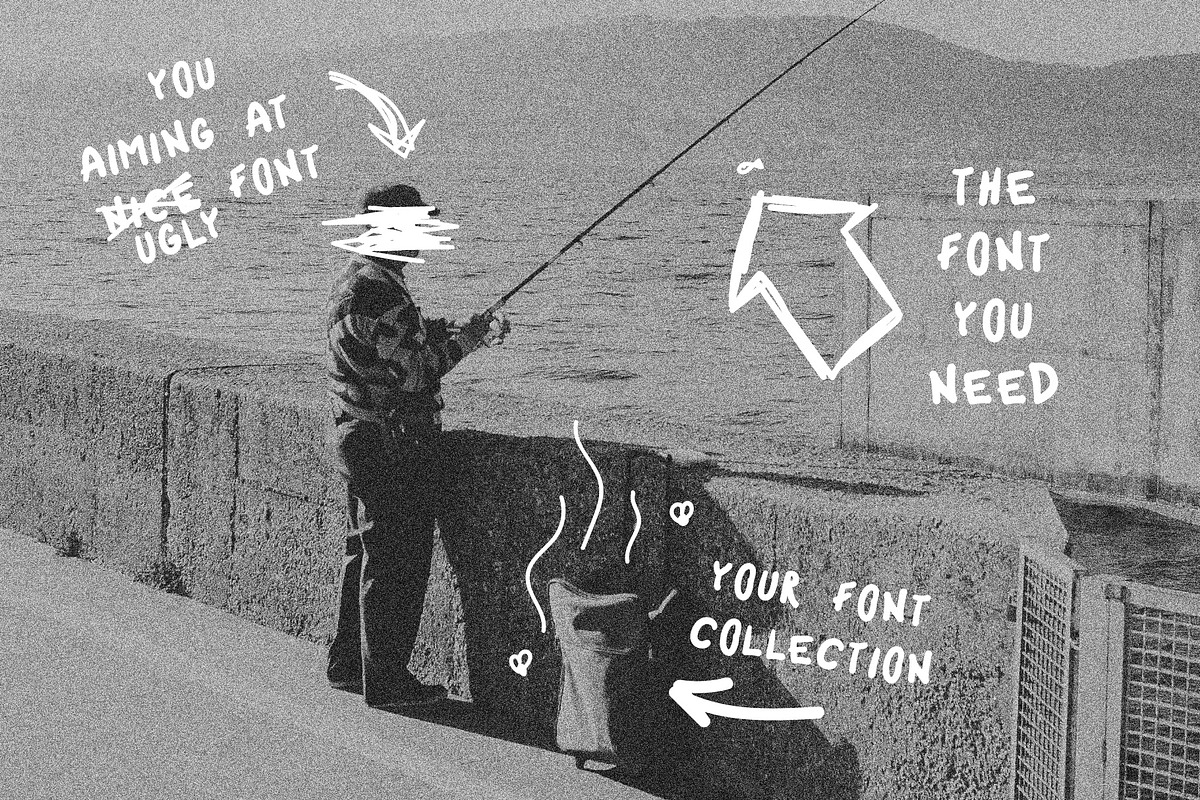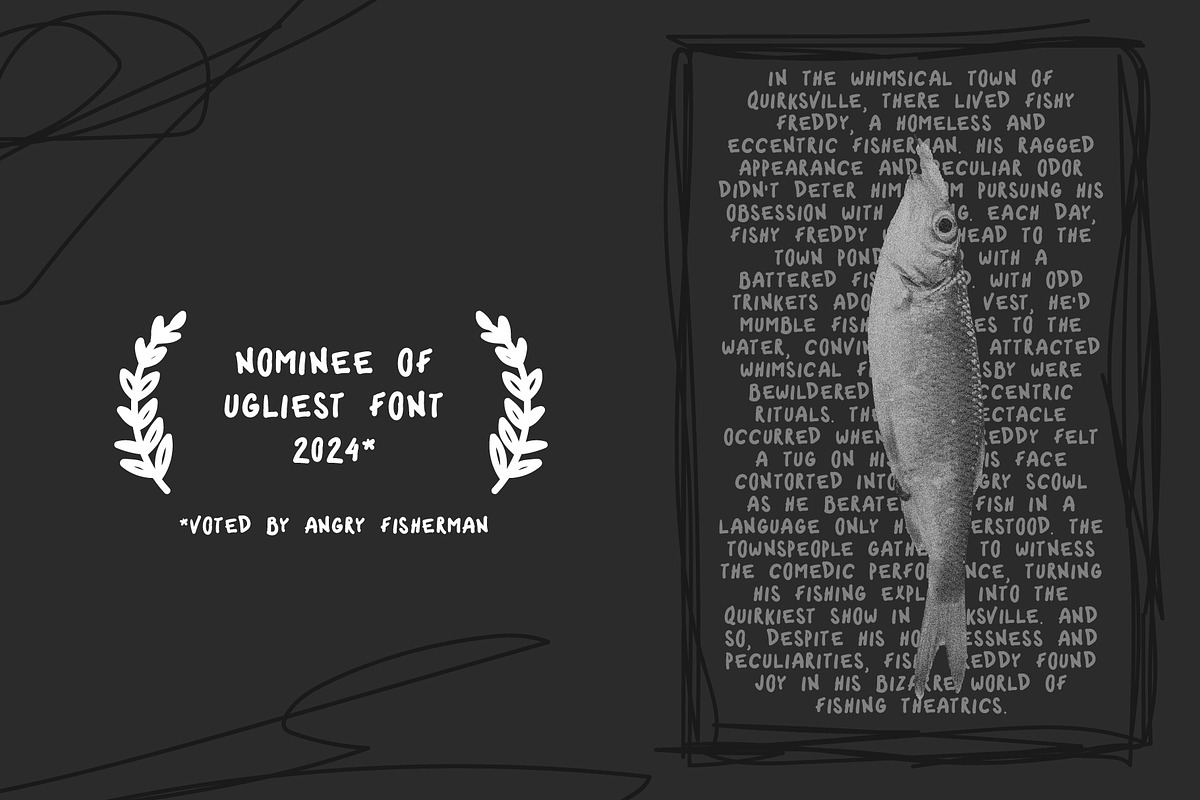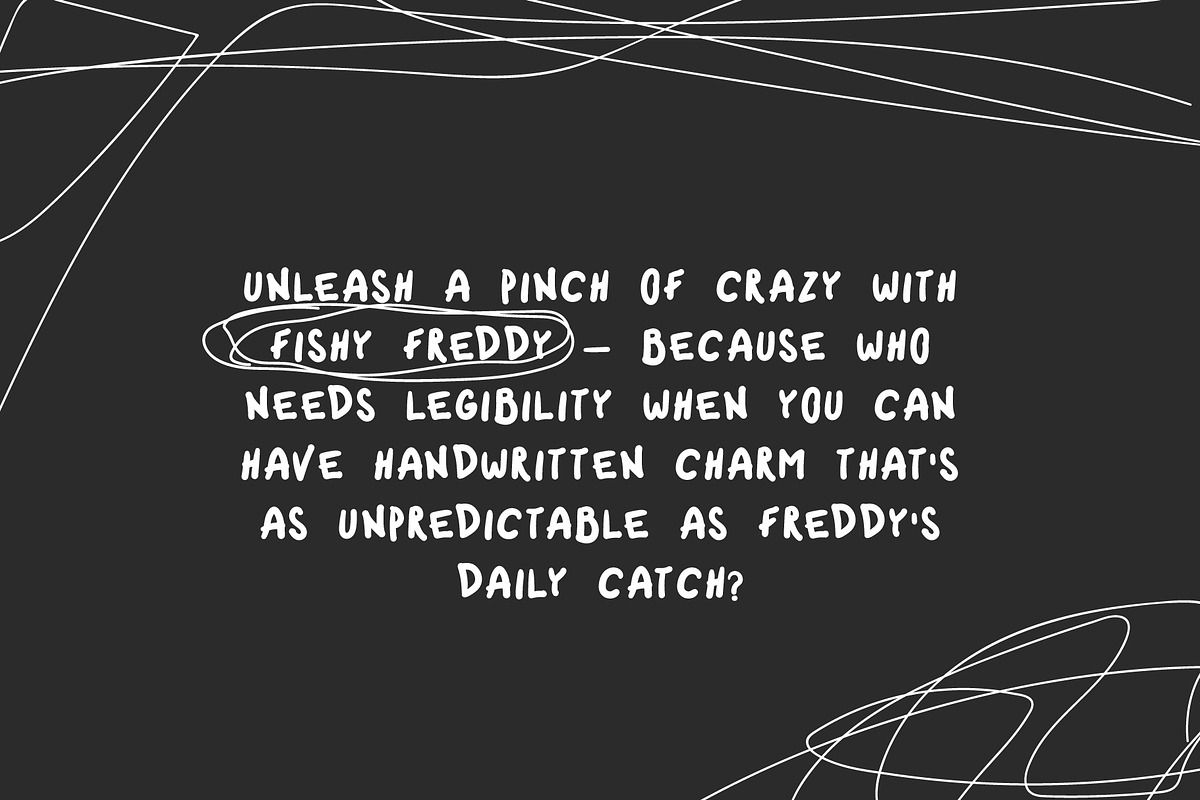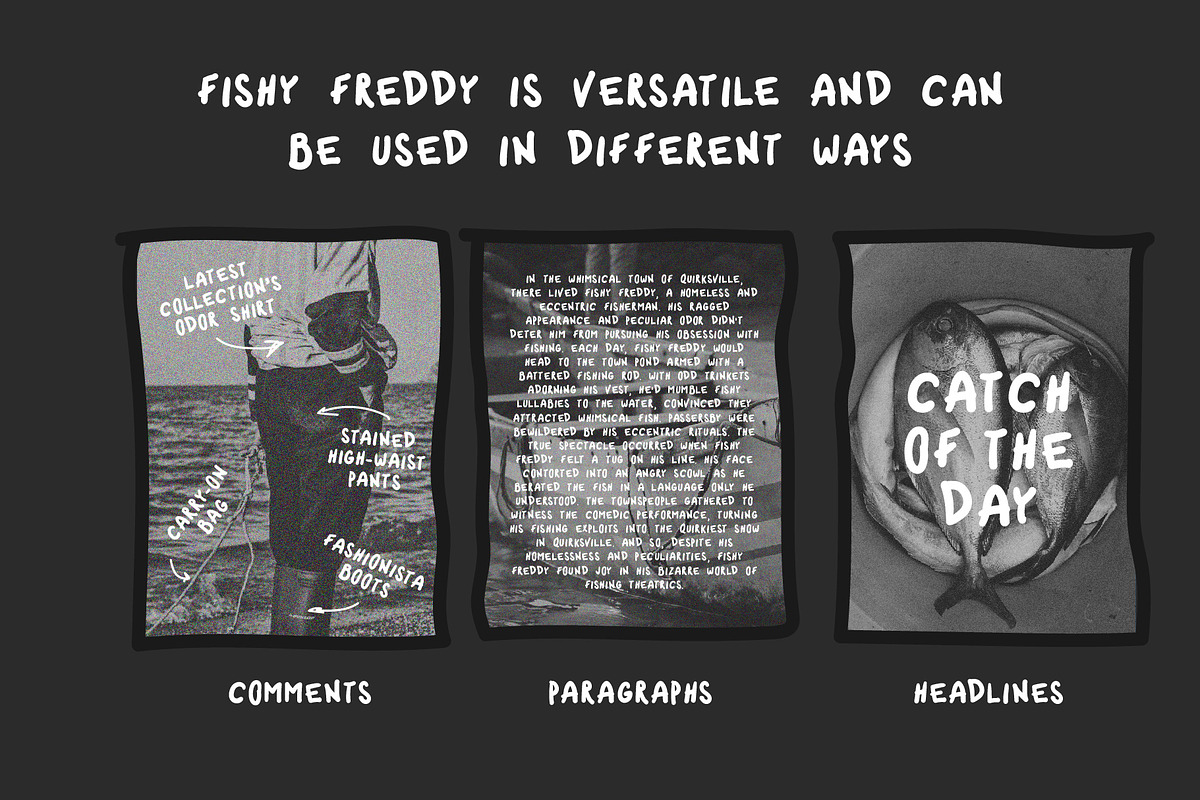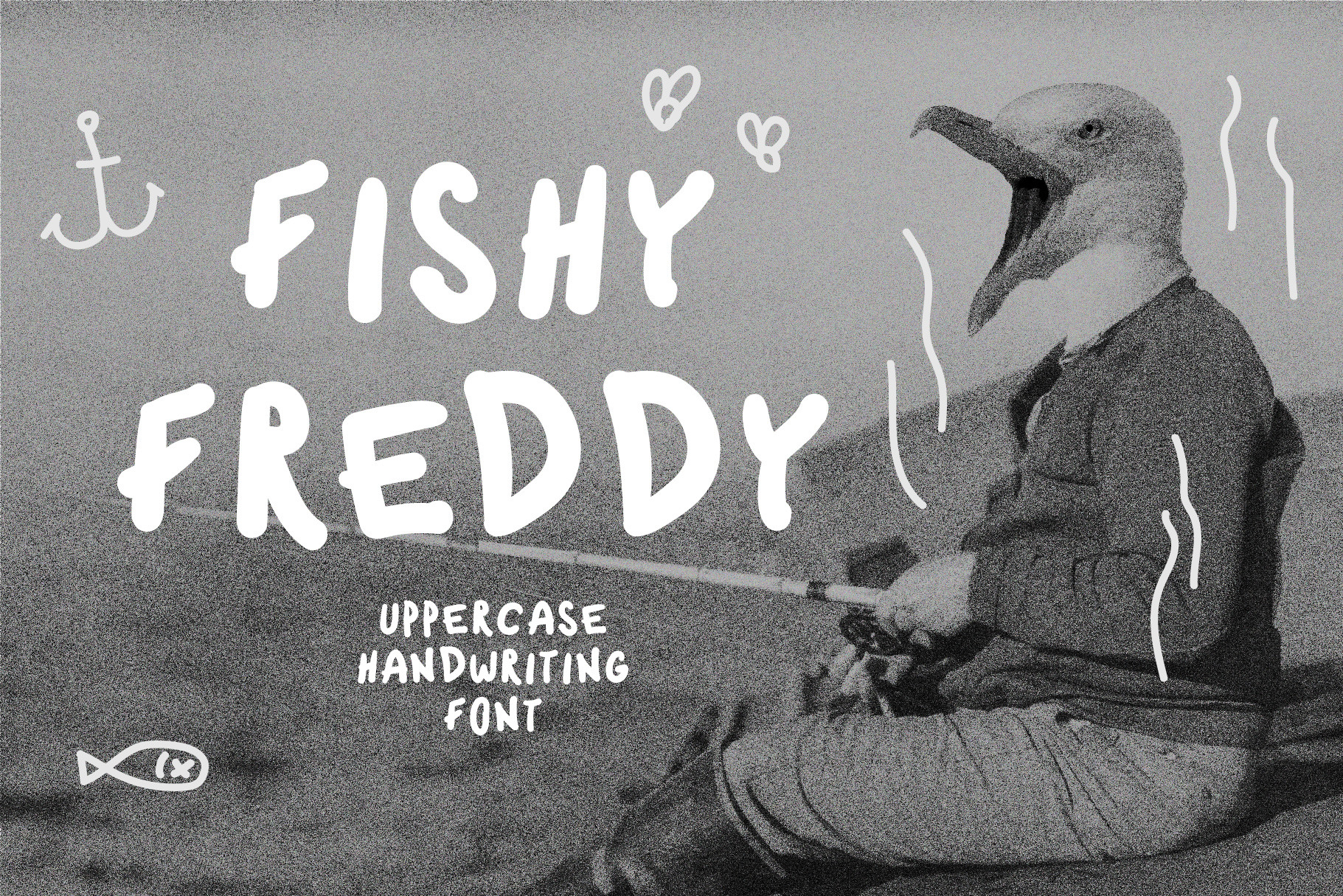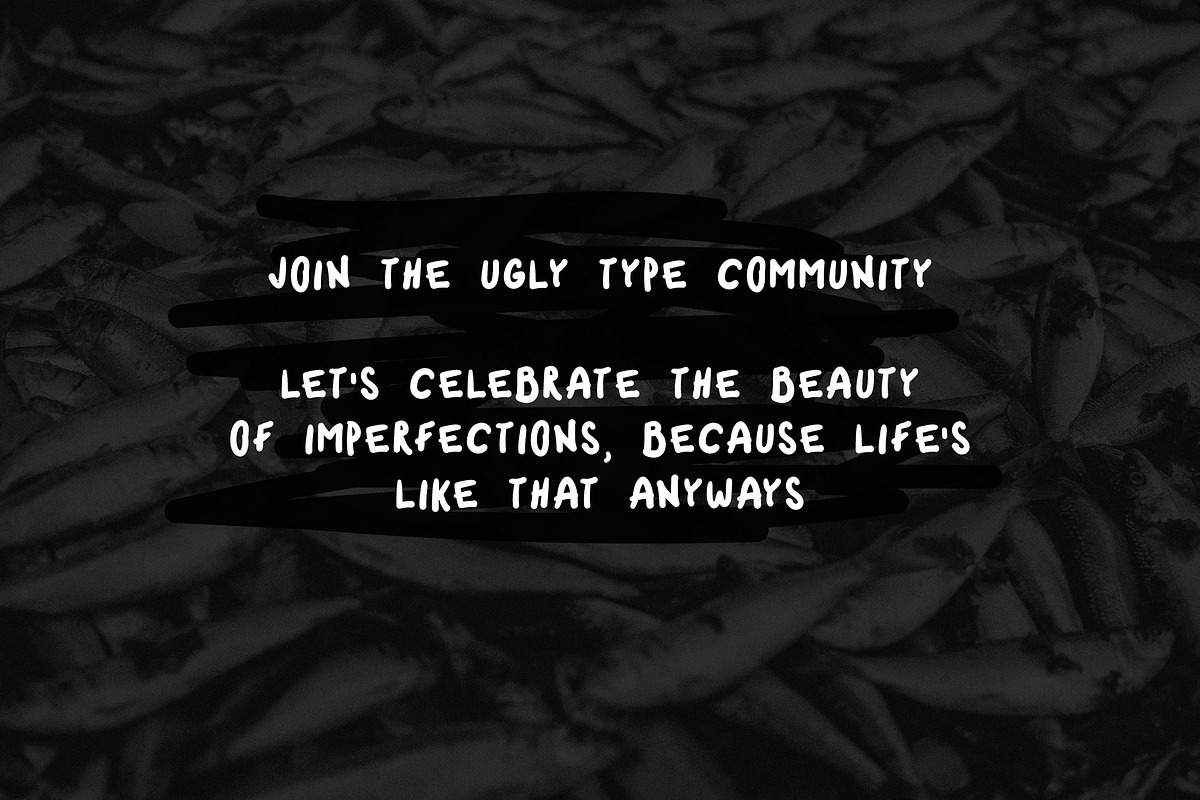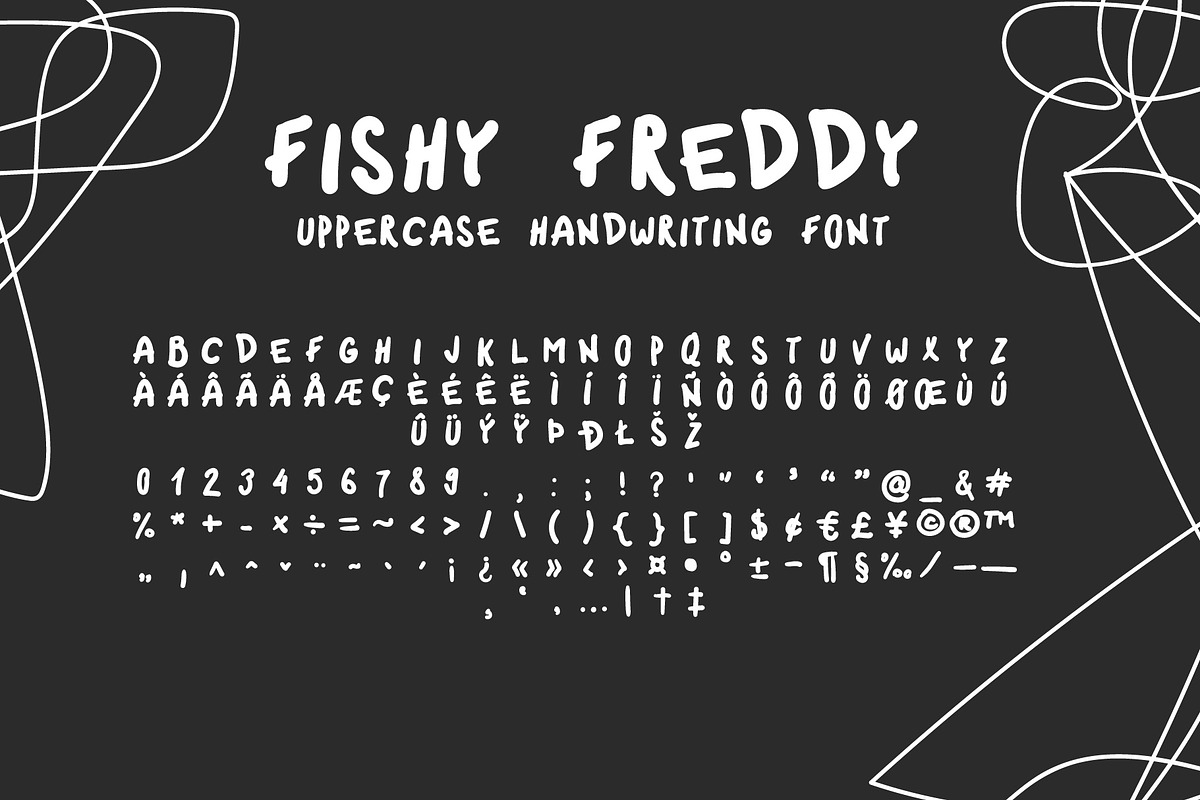
Fishy Freddy handwriting ugly font
Fishy Freddy font is true and rough handwriting font for your next project. It isn't meant to be perfect - but in his own way, it is! It is so random and weird, but somehow magically it works. Could be used in any of your projects where you want to use a handwriting style type that looks authentic and messy looking.
It is an uppercase font with some numerals and symbols included (see photos) The font included is in both .otf and .ttf file formats